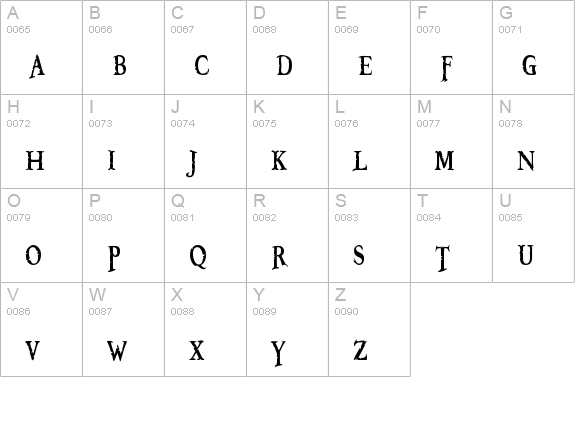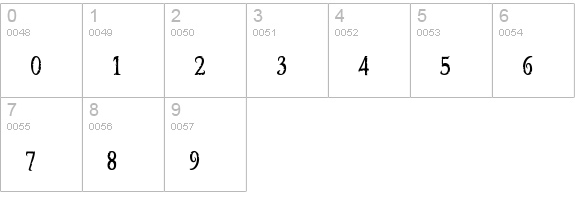
Booter - Zero Zero font is a modern and stylish typeface that exudes a sense of creativity and sophistication. With its sleek lines and contemporary design, this font is perfect for a wide range of projects, from branding to advertising to social media graphics. What sets Booter - Zero Zero font apart is its versatility and adaptability, making it suitable for both digital and print applications. Whether you're designing a logo, creating a poster, or crafting a website, this font will make your text stand out and grab attention. The best part? Booter - Zero Zero font is completely free to download at FontsMarket.com. With just a few clicks, you can add this stunning font to your collection and start using it in your projects right away. Don't miss out on this fantastic opportunity to elevate your designs with Booter - Zero Zero font.